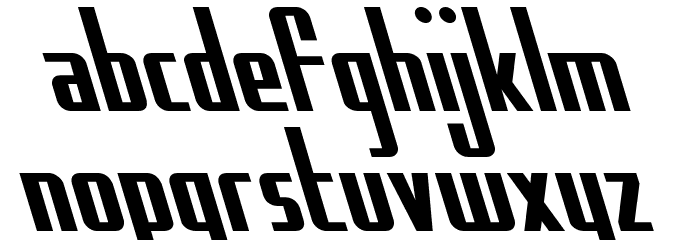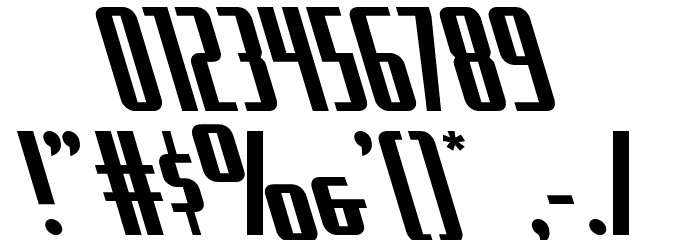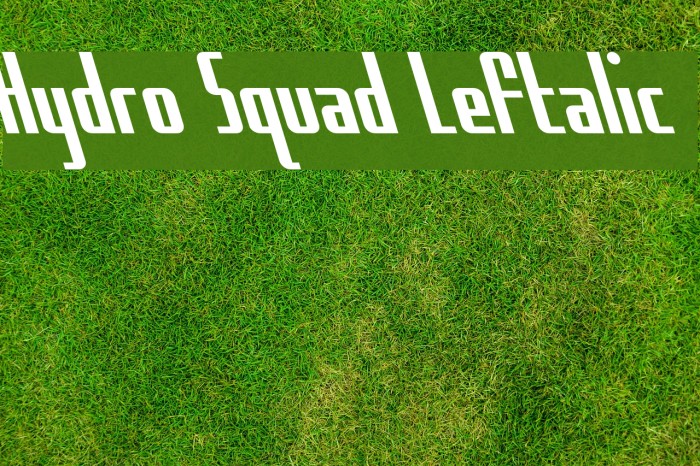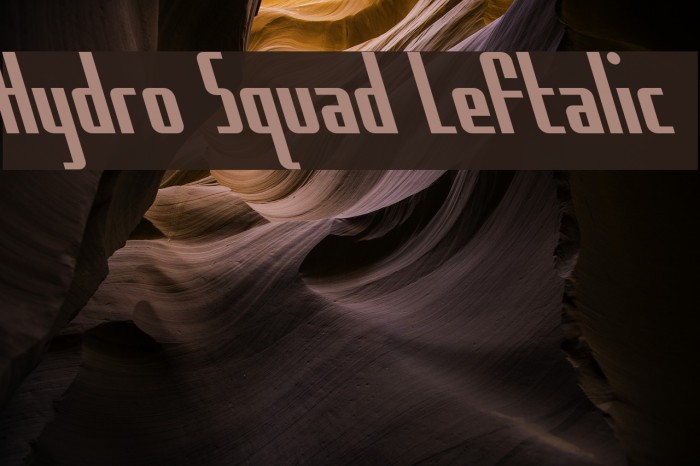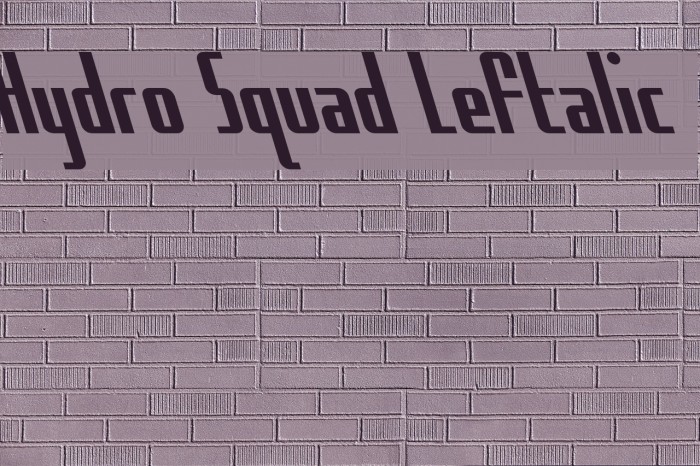
Hydro Squad Leftalic Font
This font features a bold and dynamic style with a distinct slant to the left, giving it a sense of motion and energy. The characters are tall and narrow, with sharp angles and clean lines that create a modern and edgy appearance. The uppercase letters are particularly striking, with a strong presence that commands attention. The lowercase letters maintain the same angular style, ensuring consistency across the typeface. Numbers and special characters are designed to match the overall aesthetic, making this font versatile for various applications. The spacing between characters is tight, enhancing the compact and impactful look.
A bold, left-leaning font with sharp angles and a modern, dynamic style.
- Proposed Projects: Ideal for sports branding, dynamic posters, edgy advertisements, and modern web design.